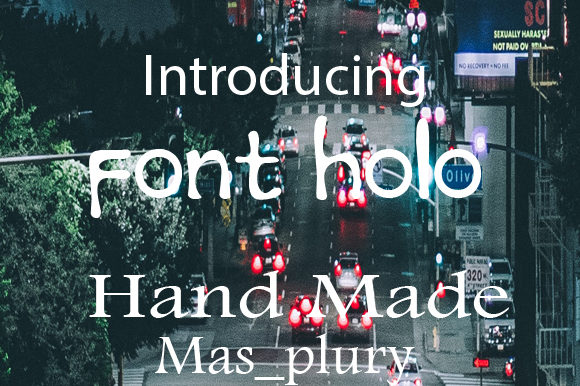
Font Holo: A Casual Typeface with Timeless Appeal
More Than Just a Pretty Face: The Essence of Font Holo
When you first encounter Font Holo, you notice something immediately: it feels familiar yet fresh. This isn't a typeface that shouts for attention with dramatic swashes or overly stylized letterforms. Instead, Font Holo is a casual and simple font with a timeless appeal. Its personality lies in its relaxed confidence. The characters have a friendly, approachable quality, often featuring gentle curves and a slightly informal baseline that mimics natural handwriting without sacrificing legibility. It’s the typographic equivalent of a comfortable, well-made sweater—unassuming, versatile, and always appropriate.
Think of Font Holo as a bridge between a structured sans serif font and a more expressive handwritten font. It avoids the rigid geometry of a classic sans serif, opting instead for subtle imperfections and a human touch. This gives it a warmth and authenticity that purely digital typefaces sometimes lack. The overall aesthetic is clean and modern, making it a fantastic creative font for projects that need to feel personal and genuine, not sterile or corporate. It’s a typeface that doesn’t try too hard, and that’s precisely where its strength lies.
Where Font Holo Truly Shines: Practical Applications
The versatility of Font Holo is one of its greatest assets. Its balanced nature allows it to adapt across a wide spectrum of projects. For brand identity, it’s a superb choice for businesses that want to project approachability and authenticity. Imagine a local bakery, a boutique coffee roaster, a wellness coach, or a handmade craft shop. Using Font Holo in their logo design and marketing materials immediately communicates a friendly, down-to-earth brand personality. It says, “We’re here to help, and we’re easy to talk to.”
In the realm of editorial design and publishing, Font Holo works beautifully for subheadings, pull quotes, or chapter titles in lifestyle magazines, blogs, and book covers. It adds a touch of personality to layouts without overwhelming the primary text. For packaging design, especially for artisanal products, it can make labels feel handcrafted and thoughtful. On the digital front, it’s a winner for web design headers, social media graphics, and email marketing campaigns. Its clarity on screens, combined with its casual vibe, makes it perfect for engaging a social media audience in a relatable way. It’s also a go-to for personal projects like wedding invitations, greeting cards, or custom planners, where a personal touch is everything.
The Strategic Impact: How a Font Influences Your Project
Choosing a font is never just an aesthetic decision; it’s a strategic one. The typeface you select directly influences readability, visual hierarchy, and brand perception. Font Holo excels here because its simplicity promotes excellent legibility, even at smaller sizes. This is crucial for body text on websites or in longer documents. Its casual nature also helps establish a clear hierarchy; when paired with a more traditional serif font or a clean sans serif for body copy, Font Holo naturally draws the eye to key messages, guiding the reader through your content.
From a branding perspective, consistency is key. Using Font Holo across all your touchpoints—from your website to your business cards to your social media posts—builds a cohesive and recognizable brand identity. Its timeless quality means your brand won’t feel dated in a year. It fosters a sense of professionalism that’s approachable rather than intimidating, which can significantly enhance audience engagement. People are more likely to connect with a brand that feels human and relatable.
Making the Right Choice: A Practical Guide to Using Font Holo
So, how do you decide if Font Holo is the right premium font for your project? Start by evaluating your project’s core personality. Does it need to feel friendly, trustworthy, and genuine? If yes, Font Holo is a strong contender. Next, consider your audience. For adults aged 20-50, particularly in creative, entrepreneurial, and lifestyle spaces, its aesthetic resonates well.
Always test font pairings. Font Holo is incredibly versatile. It pairs wonderfully with a classic serif font like Garamond for a touch of elegance, or with a geometric sans serif font like Futura for a more contemporary, balanced look. Use it for headlines and let the paired font handle the body text. Review the included styles—does the commercial font license cover all your intended uses, from web to print? Check for OpenType features that might offer stylistic alternates or ligatures to add extra flair.
Conduct a readability test. Set a paragraph in Font Holo at the size you intend to use and see how it feels over extended reading. While it’s excellent for short to medium blocks of text, for very long-form articles, you might reserve it for headings. Finally, think of Font Holo as one of your key design assets. It’s not just a font; it’s a tool for communication. Used thoughtfully, it can elevate your modern typography, strengthen your brand’s voice, and make your message resonate more deeply with your audience. Its timeless, casual appeal ensures it will remain a relevant and valuable part of your design toolkit for years to come.